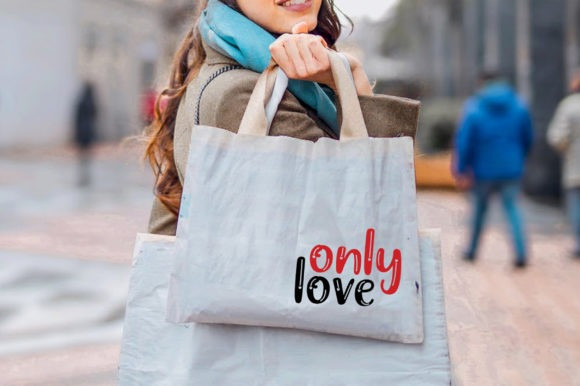
Lemon Water Font
Lemon Water Display Font is a neat and quirky display font. It can be used for various purposes such as logos, wedding invitations, headings, t-shirts, letterhead, signage, labels, news, posters, badges and so much more.